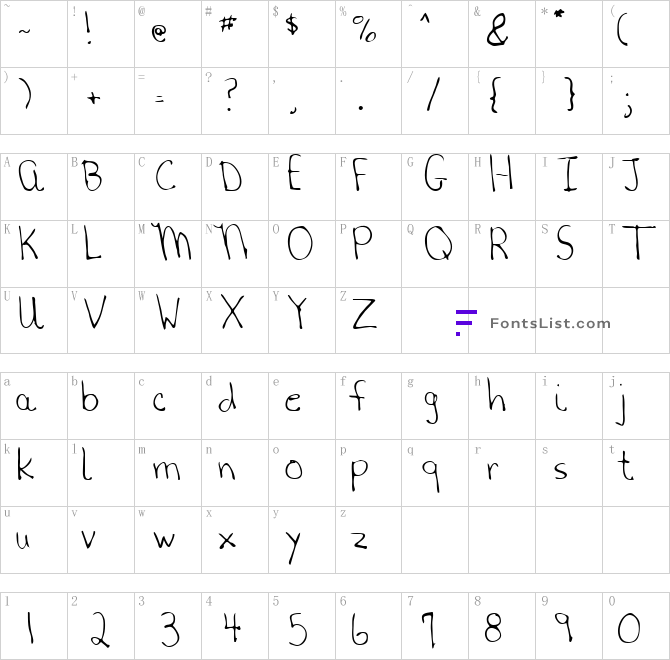
• Font Name:Austin
• Subfamily:Altsys Metamorphosis:Austin Regular
• Full Name:Austin Regular
• PostScript:Austin
Austin-Regular.ttf is a very beautiful artistic font, Austin-Regular.ttf is widely used in the design and printing of various books and pictures,Austin-Regular.ttf has a strong visual impact,Austin-Regular.ttf is a commonly used font in newspapers, magazines and books, and is used in posters, e-commerce Poster design, store design, logo design, font design and other fields.Austin-Regular.